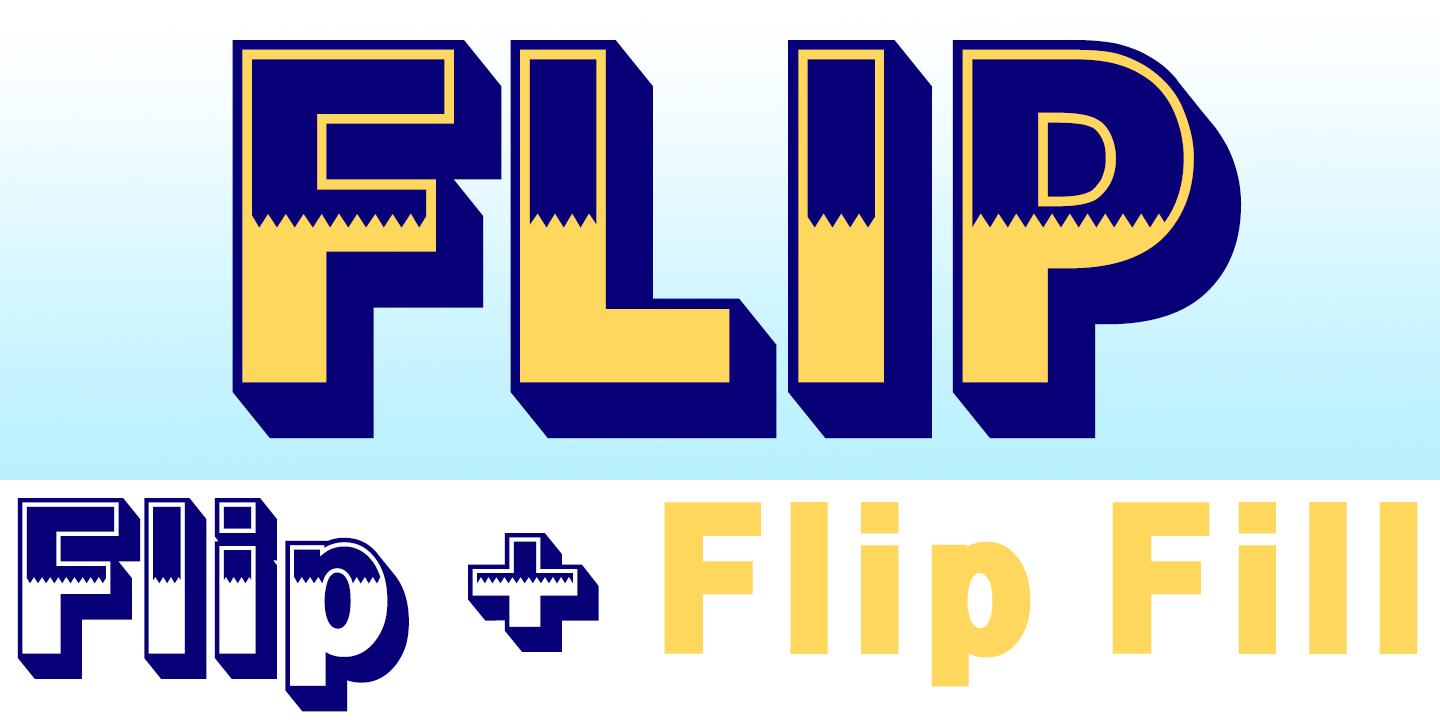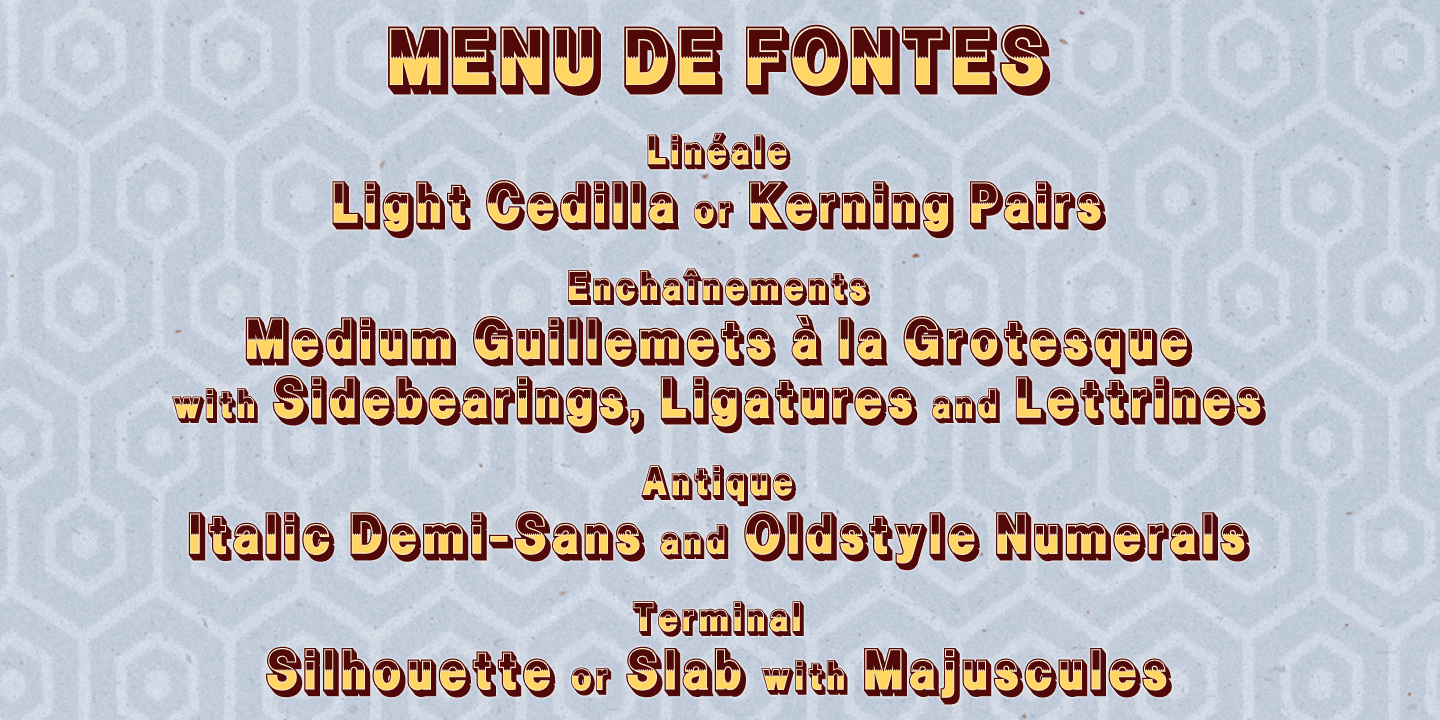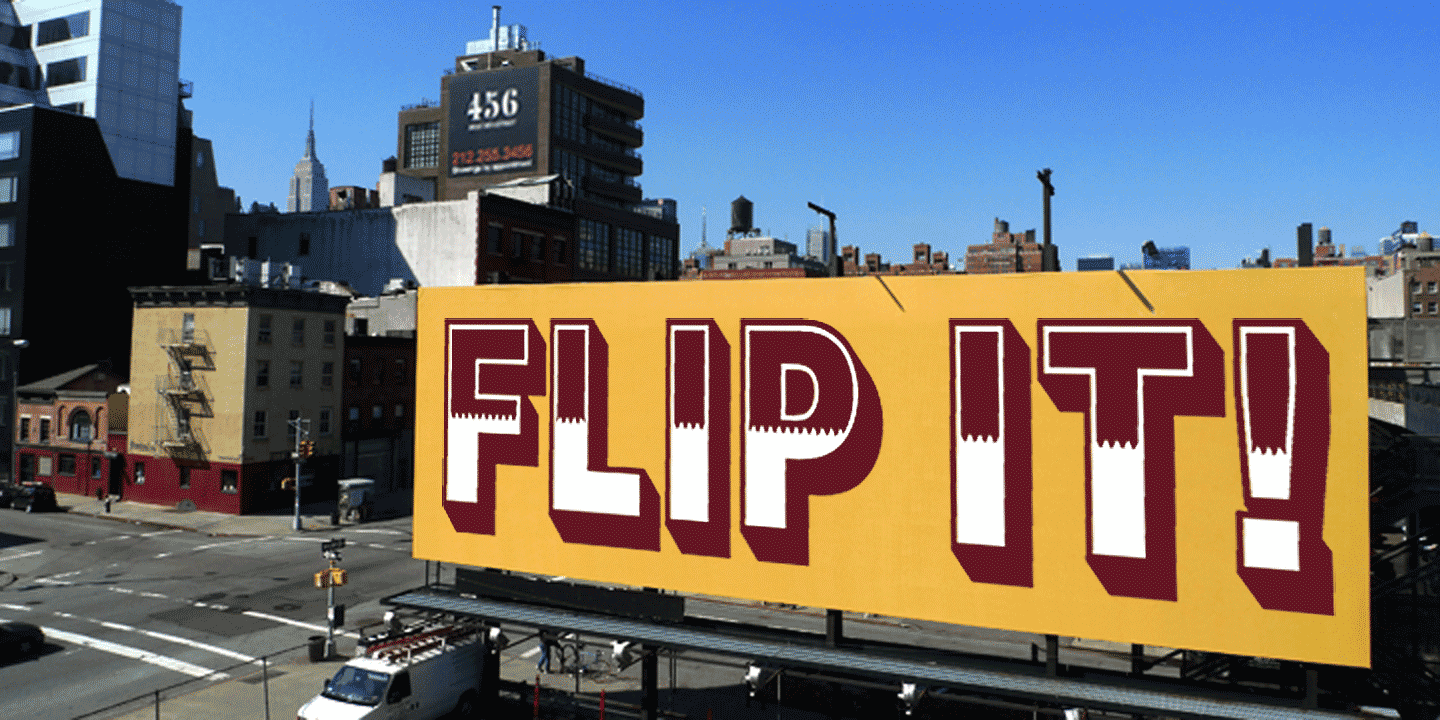
Flip
Font Family by K-Type
Flip is a bold outline shadow sans with a counterchange; an eye-catching display font for contemporary usage. The typeface is a Rosewood for generations raised on grotesques, with a simple modern zigzag replacing fancy Victorian leafiness.
Flip is flash but not flashy, it's decorative rather than pretty, it's a celebration without pomp, festive but not flowery. Two fonts are included, Flip and Flip Fill; they have matching spacing and kerning so can be overlapped for bicolor effects.
Flip Fill
Flip Regular